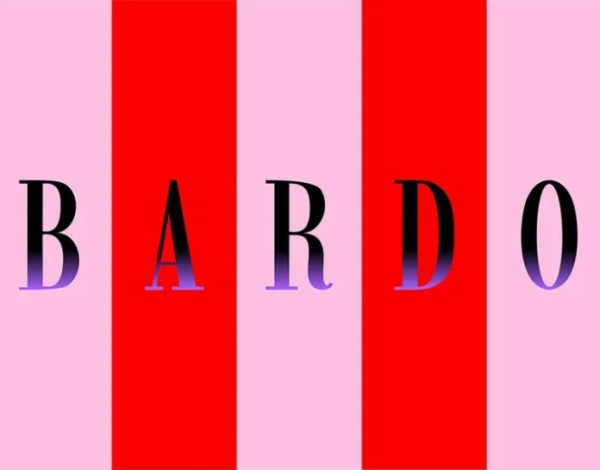
Bardo Font
Bardo Font is a bold and authentic serif display font. The font is suitable for any branding project like logo, t-shirt printing, esport, and many more. outstanding in a wide range of contexts.
Bardo is a great choice for designers who want to add a touch of luxury and style to their work. Its readability and accessibility make it perfect for both print and digital designs.